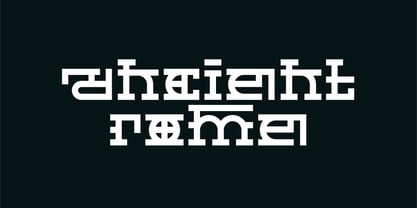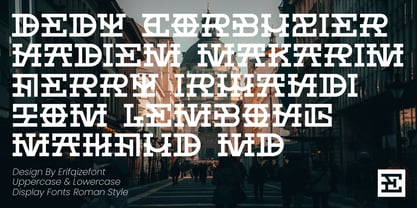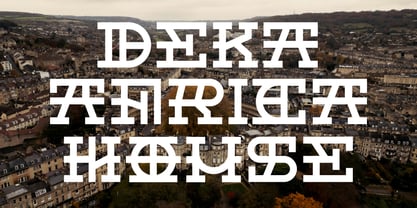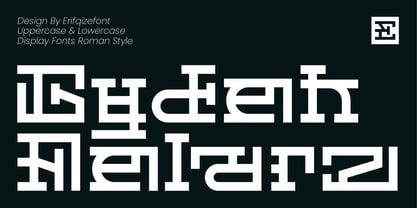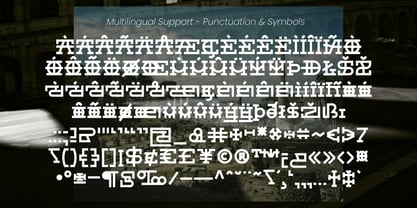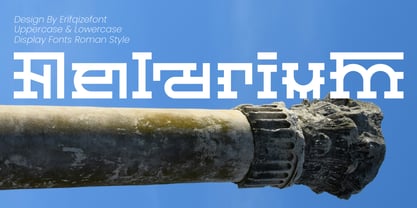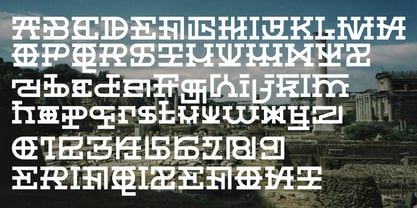
Felarium
by Erifqizefont
The Felarium Font Family was designed by Eka Rifqi Setiawan and published by Erifqizefont. Felarium contains 1 styles. More about this family
Felarium is a bold display font inspired by the grandeur of ancient Roman architecture and inscriptions. Its geometric letterforms seamlessly blend historical elegance with a modern, structured edge, creating a timeless typographic identity. Each character is meticulously crafted with strong proportions, decorative serifs, and symmetrical elements that resonate with the classical Roman aesthetic. Ideal for impactful headlines, striking posters, distinctive logos, or any design project that aims for a monumental and cultural feel. This versatile font includes uppercase and lowercase letters, numerals, punctuation, and comprehensive multilingual support, making it suitable for a wide range of applications in branding, editorial design, and more